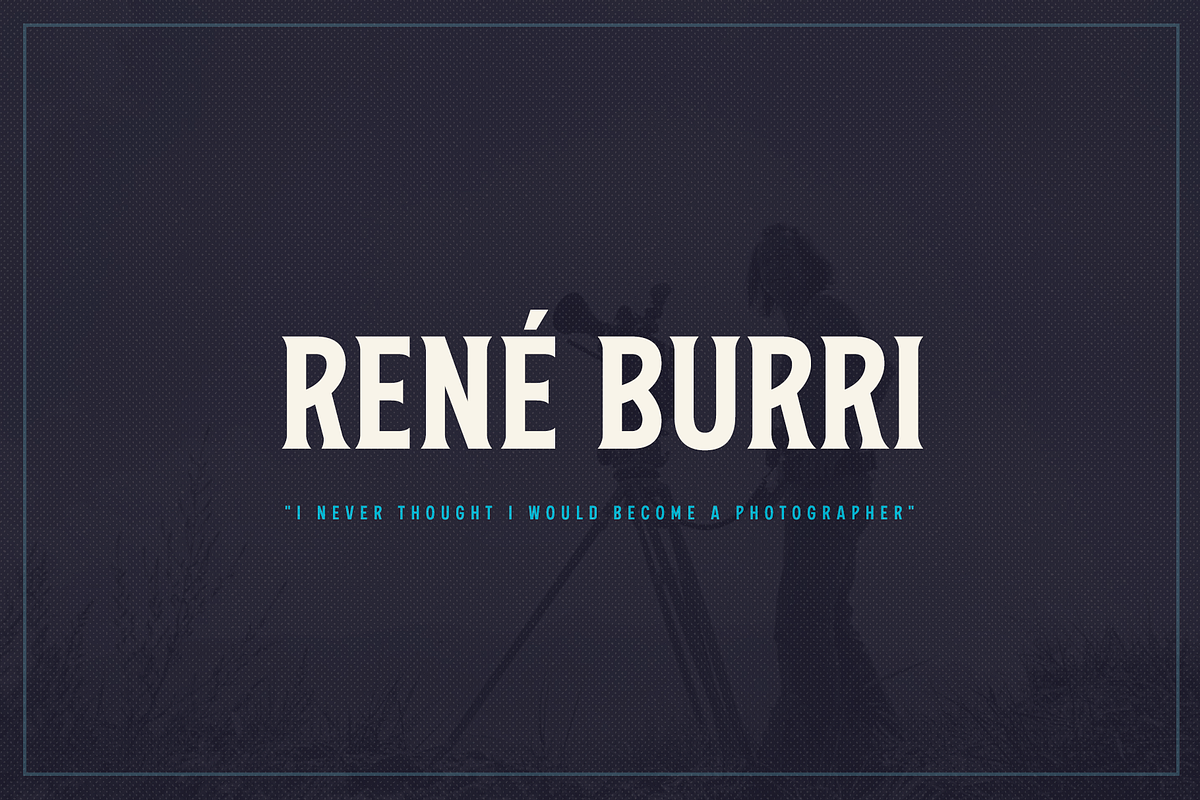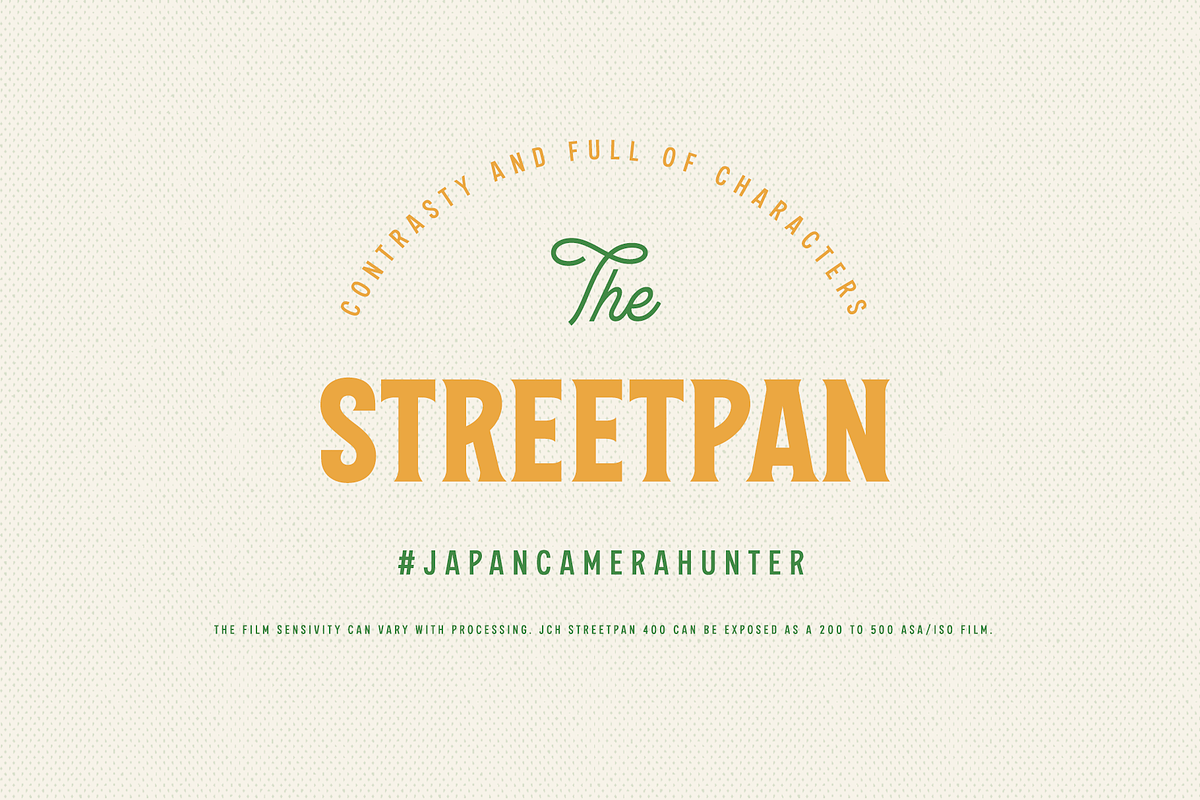
The Bystander Collection
The Bystander is an original font collection of eleven fonts. Inspired by masters of art photography. It contains eleven typefaces in sans, serif and script styles, which are all works great together or in their own. The script version also combined with ending swashes, use stylistic alternates from 1 to 8 to work with them.